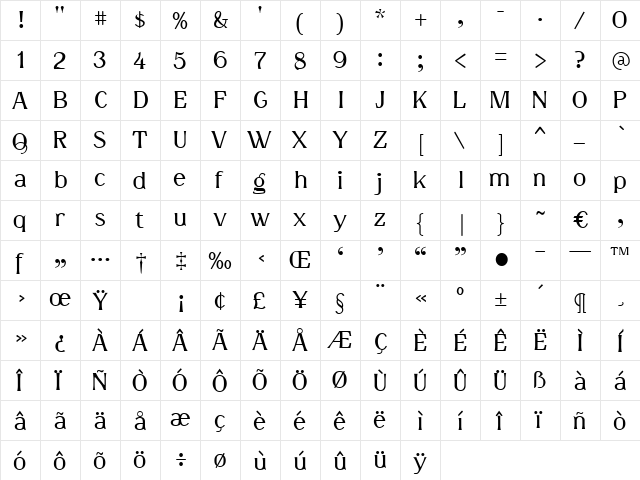
Doctor Regular
Design Context for Doctor Typeface
Doctor offers clean, dependable letterforms without strong stylistic allegiance, making it a practical choice for designers who need flexibility.
Pro Tip: Use Doctor in both headline and body roles to test its range before committing to a single application.